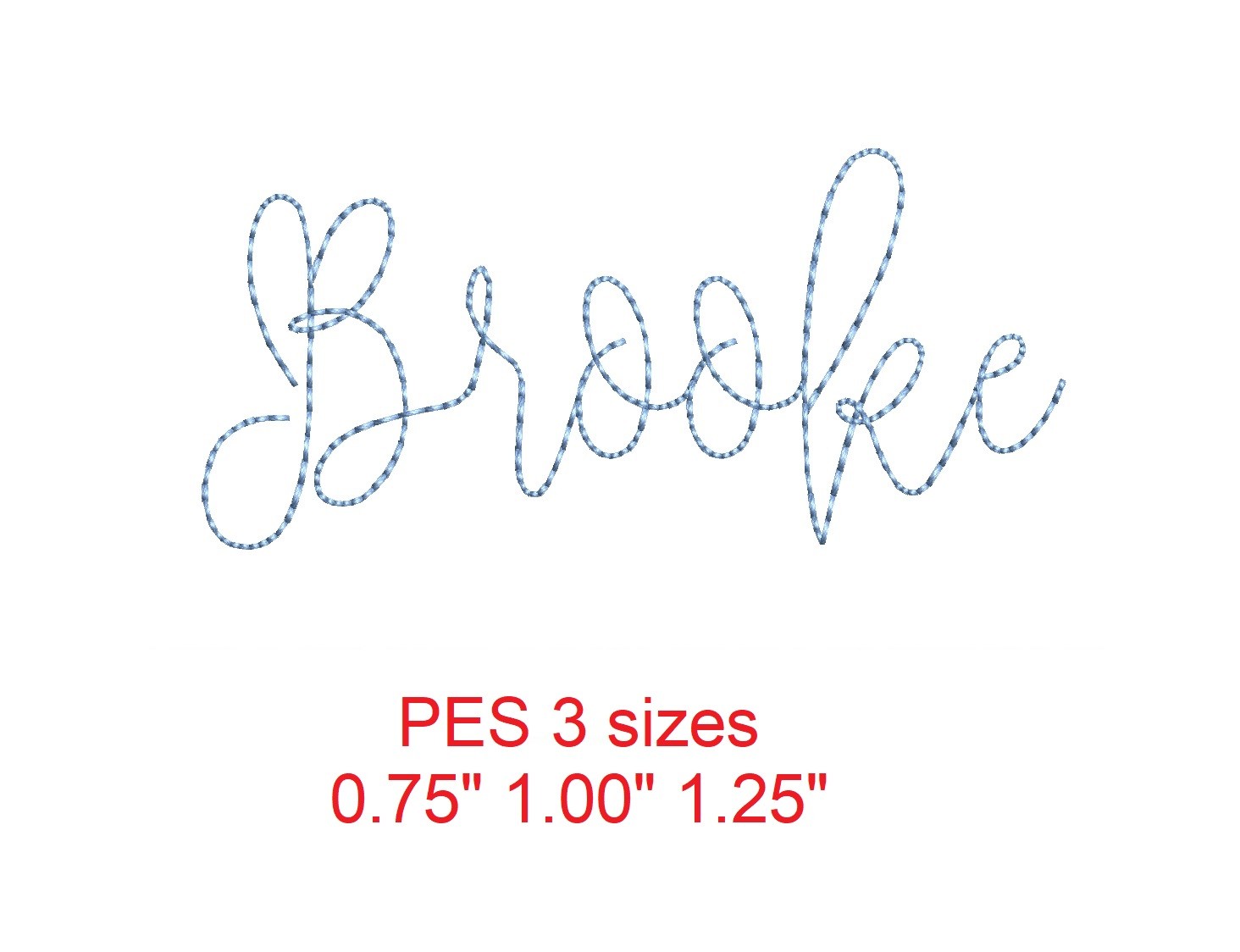
Brooke Bean Stitch Font
Looking for a stylish and elegant embroidery font that’s quick and easy to stitch? Look no further than the Brooke bean stitch embroidery font! Available in three sizes, this beautiful script font features a triple run stitch that creates a clean and polished look on any project. Crafted with care and attention to detail, the Brooke bean stitch embroidery font is perfect for adding a touch of sophistication to your embroidery projects. And with compatibility across the majority of Brother/Babylock embroidery machine brands, you can use this font with confidence knowing that it will work seamlessly with your machine. So why wait? Add the Brooke bean stitch embroidery font to your collection today and start creating beautiful, professional-quality projects that are sure to impress! Whether you’re embroidering a custom gift for a loved one or adding a personalized touch to your own clothing or accessories, this font is a must-have addition to your embroidery toolkit. So start stitching today and let your creativity run wild with the Brooke bean stitch embroidery font! This machine embroidery design comes with multiple embroidery file formats and can be used with multiple embroidery machines. NOTE: It also includes the DST format.